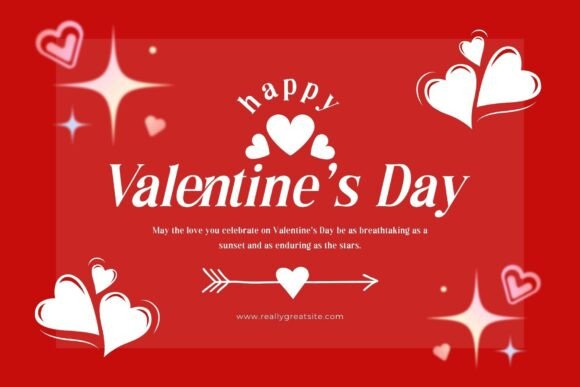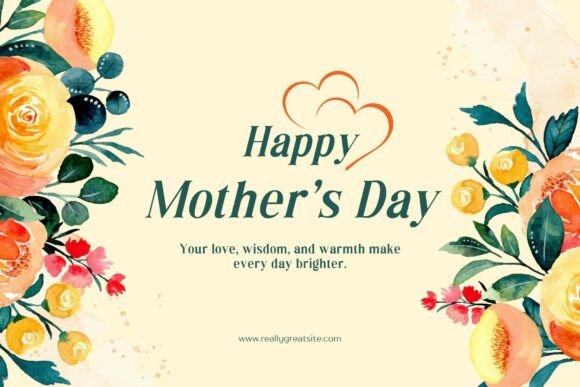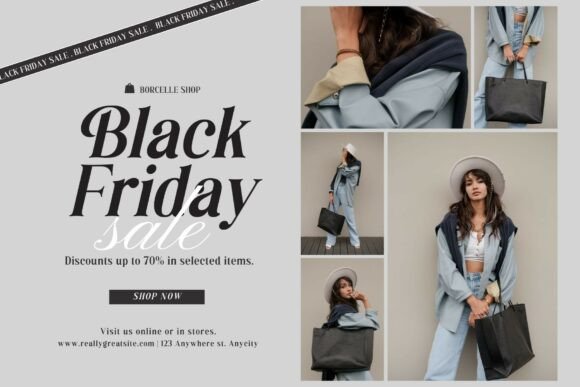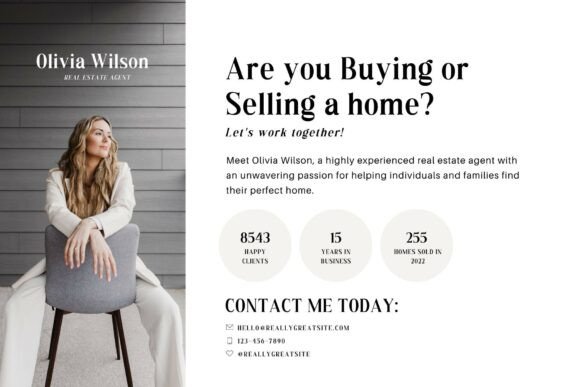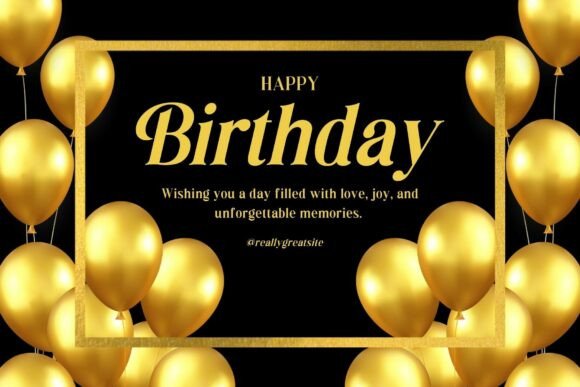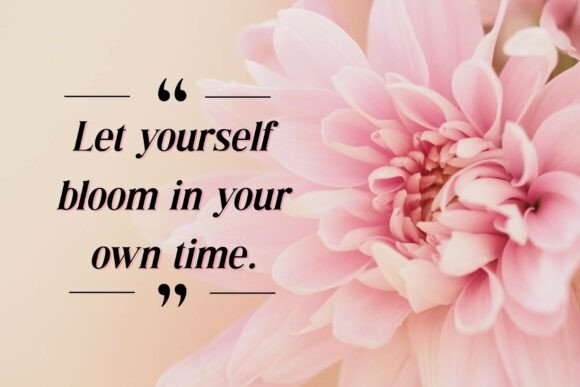
Introducing Fox Rooris Font: The Epitome of Elegance and Sophistication
In the realm of typography, few fonts manage to strike a balance between classic elegance and modern sophistication. Fox Rooris, a beautifully crafted serif font, is one such typeface that effortlessly merges the timeless charm of traditional serif fonts with a contemporary edge. Designed with meticulous attention to detail, Fox Rooris is adorned with stunning curves and unique decorative swashes, making it an ideal choice for designers and crafters seeking to infuse their projects with a touch of luxury and high-fashion aesthetics.
The Design Philosophy Behind Fox Rooris
Fox Rooris is not just a font; it’s an experience. Its design philosophy revolves around creating a typeface that exudes elegance, sophistication, and a dash of modernity. The beautiful curves and delicate strokes of Fox Rooris lend it a classic appeal, while its bold presence and unique swashes add a modern twist. This blend of old and new makes Fox Rooris versatile and suitable for a wide range of applications, from traditional branding and editorial design to modern social media graphics and packaging.
Key Features of Fox Rooris Font
- Sophisticated Serif Design: Fox Rooris boasts a classic serif design that adds a touch of sophistication to any project.
- Unique Decorative Swashes: The font features beautiful, unique swashes that can be used to add a decorative touch to headings, titles, and more.
- Perfect Balance of Legibility and Flair: Fox Rooris strikes the perfect balance between legibility and artistic flair, making it suitable for both large headings and smaller body text.
- Delicate Strokes and Bold Presence: The font’s delicate strokes and bold presence make it stand out in any design, adding a touch of luxury and elegance.
Best Use Cases for Fox Rooris Font
Fox Rooris is a versatile typeface that can be used in a variety of applications. Here are some of the best use cases for this stunning font:
- Branding & Logos: Create a memorable identity for fashion, beauty, or lifestyle brands with Fox Rooris. Its elegant and sophisticated design makes it perfect for crafting logos that exude luxury and high-end quality.
- Editorial Design: Fox Rooris is ideal for magazine layouts, mastheads, and book covers. Its classic serif design and modern edge make it a great choice for editorial projects that require a touch of elegance and sophistication.
- Wedding Stationery: Add a touch of luxury and romance to your wedding stationery with Fox Rooris. The font is perfect for creating elegant invitations, menus, and place cards.
- Social Media: Make your social media graphics stand out with Fox Rooris. The font is great for creating eye-catching quotes, Instagram posts, and Pinterest graphics that demand attention.
- Packaging: Fox Rooris is perfect for luxury product packaging that demands attention. Its bold presence and elegant design make it a great choice for creating packaging that exudes high-end quality.
Why Choose Fox Rooris Font?
With so many fonts available, why choose Fox Rooris? Here are a few reasons why Fox Rooris stands out from the rest:
- Unique Design: Fox Rooris boasts a unique design that sets it apart from other serif fonts. Its beautiful curves, delicate strokes, and unique swashes make it a standout typeface.
- Versatility: Fox Rooris is a versatile typeface that can be used in a wide range of applications, from branding and editorial design to social media and packaging.
- Elegance and Sophistication: Fox Rooris exudes elegance and sophistication, making it perfect for designers and crafters seeking to create high-end designs.
- Legibility: Despite its elegant design, Fox Rooris remains highly legible, making it suitable for both large headings and smaller body text.
| Font Name | Fox Rooris Font |
| Author | Fox7 |
In conclusion, Fox Rooris is a sophisticated and timeless serif font that is sure to elevate your design game. Its unique blend of classic elegance and modern sophistication makes it a versatile typeface that can be used in a wide range of applications. Whether you’re a designer or crafter, Fox Rooris is the perfect choice for anyone seeking to add a touch of luxury and high-fashion aesthetics to their projects. So why wait? Choose Fox Rooris today and experience the epitome of elegance and sophistication in typography.